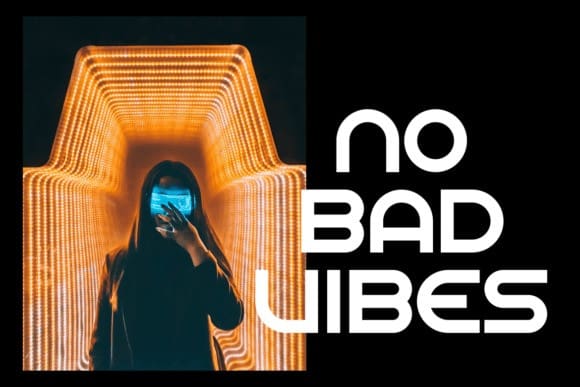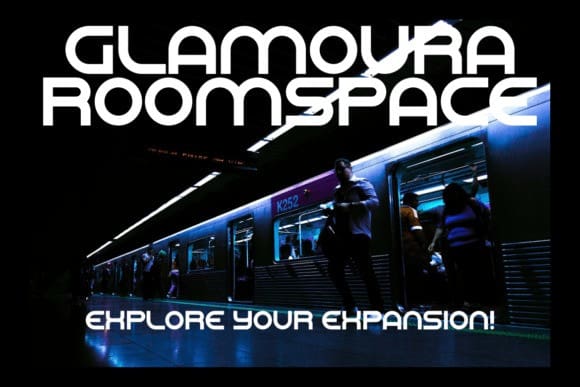
Glamoura Font
Glamoura Font is a thick typeface with more futuristic letter shapes, making it perfect for creating (or recreating) the concise look of film poster production credits.